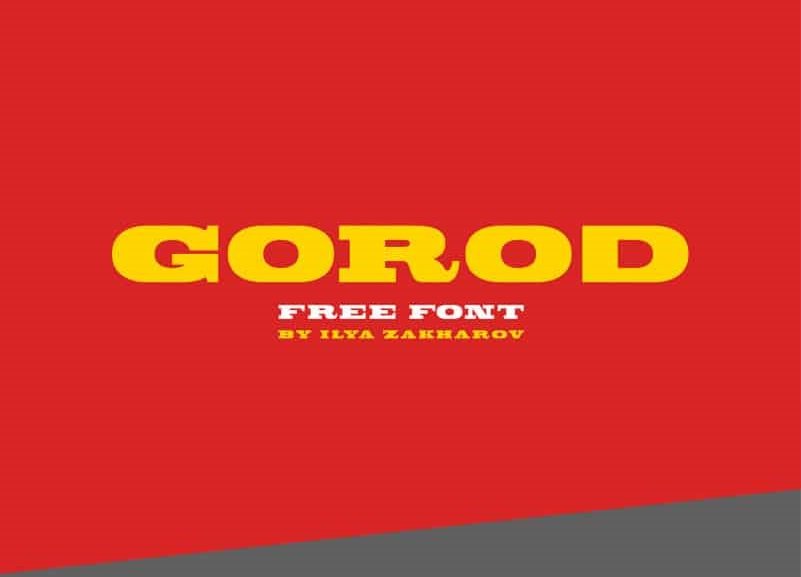
Gorod Font
Gorod Slab Serif Font is a modern slab-serif typeface designed to look great when used for both headlines and large chunks of texts. It avoids the slightly rustic character of older Egyptienne designs and, despite its distinctive forms, develops a high level of elegance and readability that can be used in all environments from display print to hand held devices. This font is suitable for your design needs such as logo, branding, card, poster, packaging design, etc.